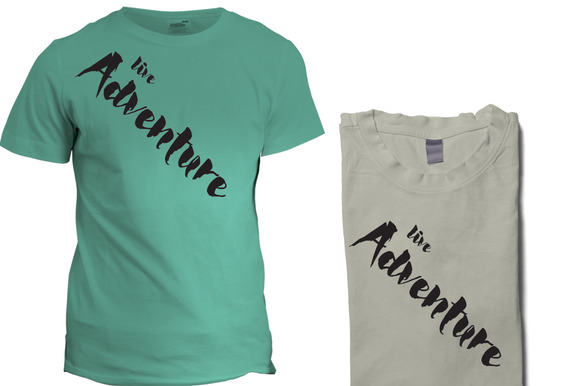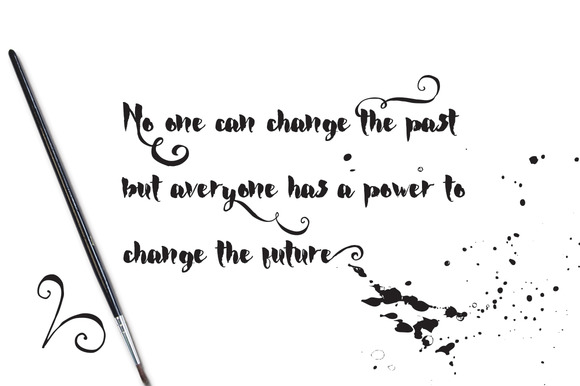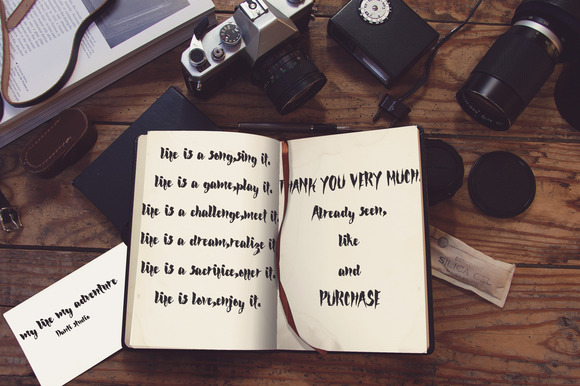
HomeScript FontsWood Row Font Script Fonts Wood Row Font FacebookXPinterestWhatsApp Wood Row Font Poster 2 Wood Row Font Poster 3 Wood Row Font Poster 4 About Wood Row Font Wood Row is a beautiful rough handwritten brush font. DOWNLOAD NOW People also explored Lassitude Font Amellgan Camellia Font Viareggio Christopher Font Scriptissimo Forte Swirls Fubrica Font HotWax Font Santun Font Brushly Font 343 0 TagsWood Row Font Previous articleBrush Action FontNext articleDelightful Font LEAVE A REPLY Cancel reply Comment: Please enter your comment! Name:* Please enter your name here Email:* You have entered an incorrect email address! Please enter your email address here Website: Save my name, email, and website in this browser for the next time I comment. Personal Use Free Handayani Personal Use Free Read more about this font Mowgli Personal Use Free Read more about this font Good Timing – Bold Personal Use Free Read more about this font Token No 721 Personal Use Free Read more about this font BLOG Exploring Font Trends Shaping Communication in the Digital Era Fonts, like all design elements, are subject to trends. They play a crucial role in communicating a brand's personality,... To increase your work productivity, choose the most readable fonts. Free Fonts Risk: Why Free Fonts Can Be Dangerous for Designers 5 Fonts That Will Dominate Design Trends in 2026